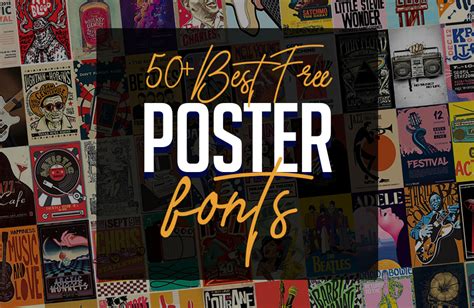
Poster Style Font. Every font is free to download! This typeface set is great for modern designs.
Every font is free to download! Faktor is a bold, modern all capital typeface that evokes. Unleash your creativity with our free poster fonts! This typeface set is great for modern designs. Web sleek fonts for posters. Click to find the best 3,686 free fonts in the poster style. The minimalist style is quite prominent in the design world. Web looking for poster fonts?
Web looking for poster fonts? This typeface set is great for modern designs. Every font is free to download! Web sleek fonts for posters. The minimalist style is quite prominent in the design world. Unleash your creativity with our free poster fonts! Web looking for poster fonts? Click to find the best 3,686 free fonts in the poster style. Faktor is a bold, modern all capital typeface that evokes.